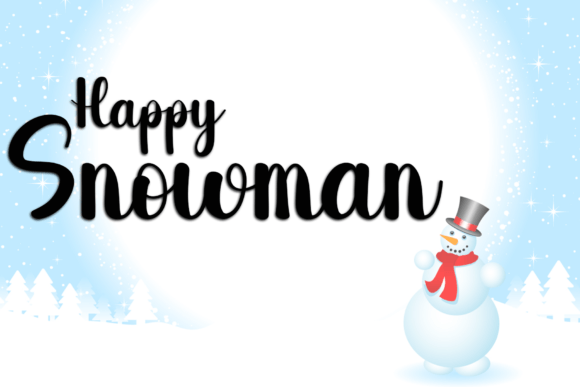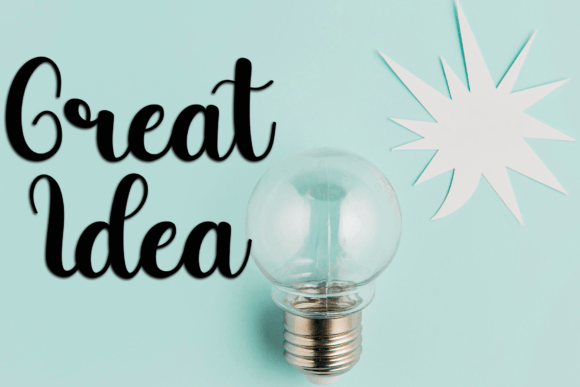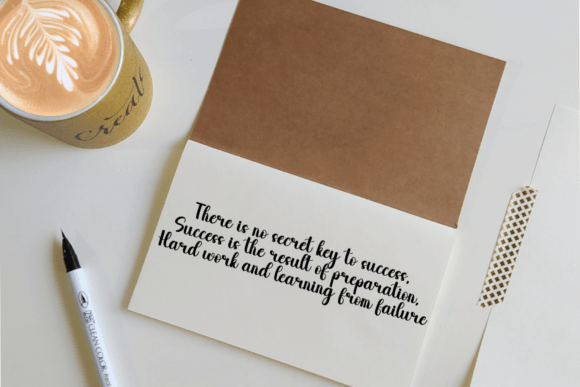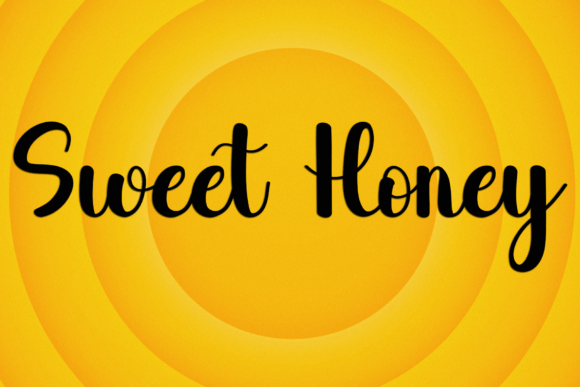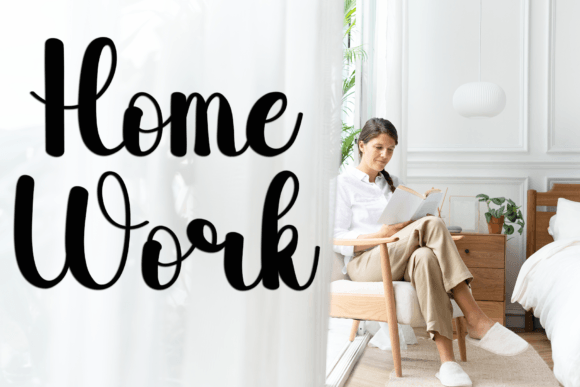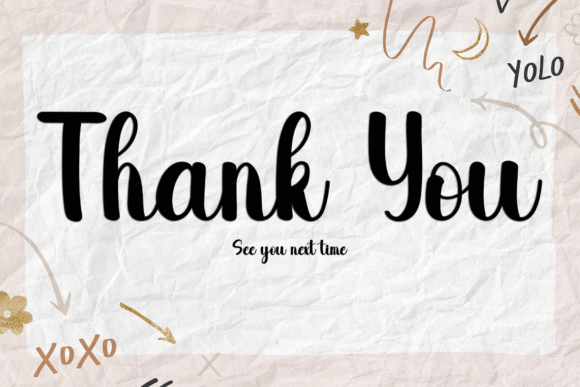
Introducing Butter Font: The Ultimate Handwritten Font for Creative Designs
Are you tired of using the same old fonts in your designs? Look no further! Butter Font is here to revolutionize your creative projects with its cool, simple, and playful handwritten style. This incredibly versatile font is perfect for a wide range of designs, and we’re excited to dive into its features and benefits.
The Characteristics of Butter Font
Butter Font is a beautifully crafted handwritten font that exudes a sense of playfulness and sophistication. Its simple yet elegant design makes it perfect for a variety of creative projects, from branding and advertising to packaging and digital media. The font’s clean lines and smooth curves create a visually appealing aesthetic that’s sure to capture the attention of your audience.
The Versatility of Butter Font
One of the standout features of Butter Font is its incredible versatility. This font can be used in a wide range of designs, from:
- Branding and logos: Create a unique and memorable brand identity with Butter Font’s distinctive handwritten style.
- Advertising and marketing materials: Use Butter Font to add a touch of personality and whimsy to your ads, flyers, and brochures.
- Packaging design: Make your product stand out on store shelves with Butter Font’s eye-catching and playful design.
- Digital media: Use Butter Font in your social media graphics, blog posts, and website designs to add a personal touch.
Why Designers and Crafters Love Butter Font
Designers and crafters alike are drawn to Butter Font for its unique combination of style and versatility. Here are just a few reasons why:
- Easy to read: Despite its playful design, Butter Font is incredibly easy to read, making it perfect for body text and headlines.
- Highly customizable: Experiment with different colors, sizes, and styles to make Butter Font your own.
- Unique and distinctive: Stand out from the crowd with Butter Font’s one-of-a-kind handwritten style.
Tips and Tricks for Using Butter Font
To get the most out of Butter Font, try these expert tips:
- Pair with bold fonts: Combine Butter Font with bold, sans-serif fonts for a striking contrast.
- Use in combination with images: Pair Butter Font with high-quality images for a visually appealing design.
- Experiment with colors: Try out different color schemes to find the perfect match for your design.
Butter Font is a game-changing handwritten font that’s perfect for designers and crafters looking to elevate their creative projects. With its cool, simple, and playful design, this font is incredibly versatile and easy to use. Whether you’re working on branding, advertising, packaging, or digital media, Butter Font is the perfect choice. So why wait? Download Butter Font today and watch your designs come alive!